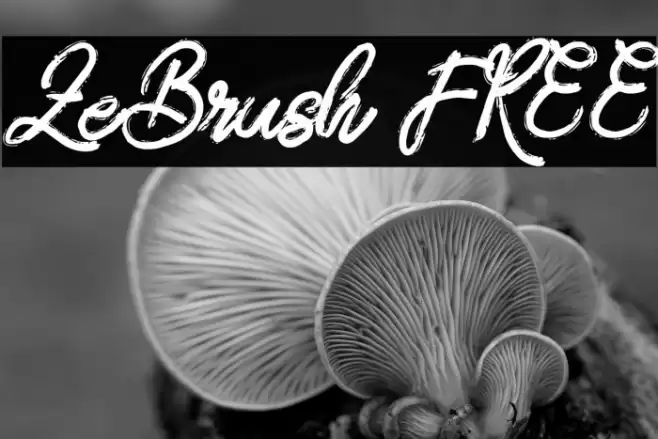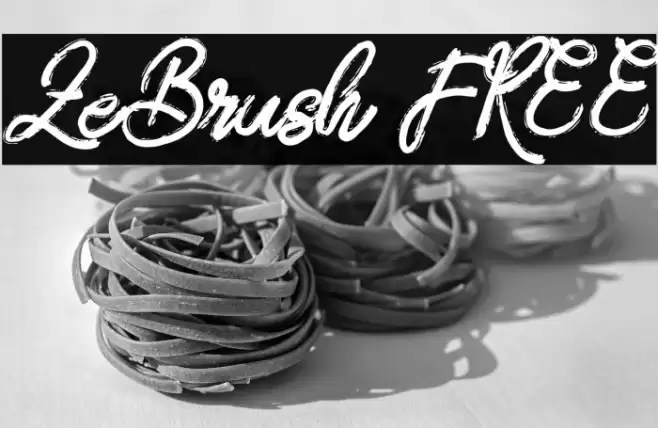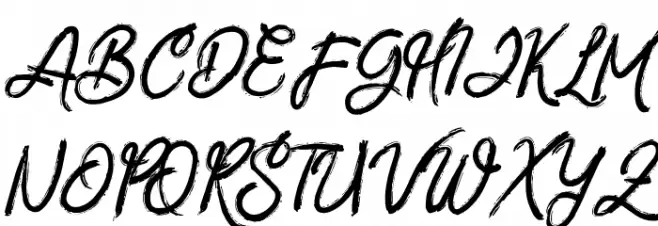
ZeBrush FREE Font
ZeBrush FREE Description
This font features a dynamic and expressive brush script style, characterized by its fluid and energetic strokes. The letters are crafted with a sense of movement, giving them a lively and artistic appearance. The uppercase and lowercase letters are well-balanced, with a natural flow that mimics the strokes of a paintbrush. The font has a handcrafted feel, with varying stroke widths that add to its organic and spontaneous look. The overall design is both bold and elegant, making it suitable for creative and artistic projects.
A dynamic brush script font with fluid, expressive strokes from Regular fonts.
- Proposed Projects: Ideal for branding, invitations, posters, and artistic designs that require a personal and creative touch.
- Use Case: Logos, Headlines, Artistic projects